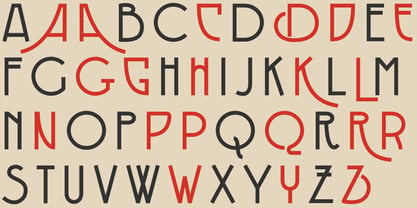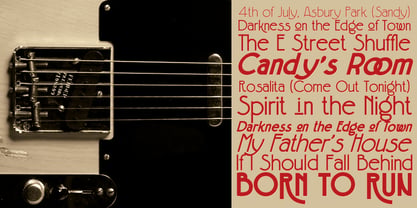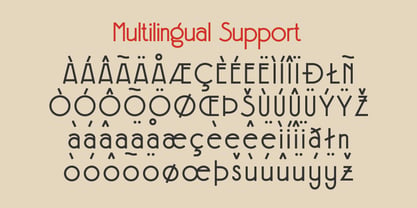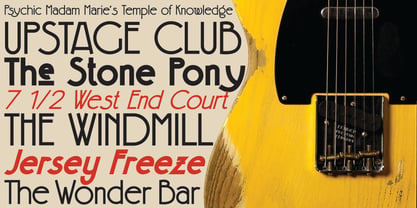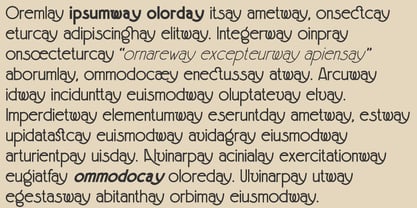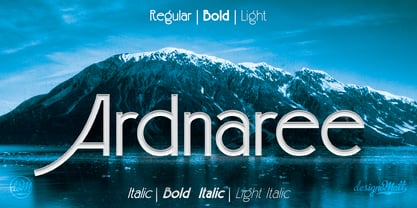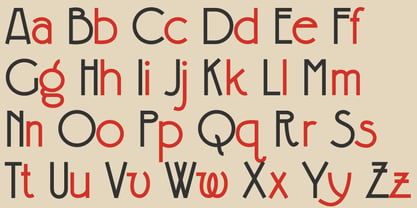
Ardnaree
The Ardnaree Font Family was designed by Matthew Gallagher and published by designoMatt. Ardnaree contains 6 styles and family package options. More about this family
Ardnaree is our latest release from the designomatt Foundry and is another nod to our Irish Ancestors and the area from which we hail. Although, at its heart it is a decorative font, it is quite suitable for typesetting; especially for emphasis when paired with a complementary font, like our own Breaffy.
The family consists of: Regular, Bold, Italic, Light, Bold Italic, and Light Italic and features a complete extended Latin character set as well as ample alternates, ligatures, and Welsh characters.